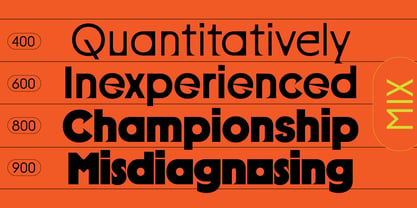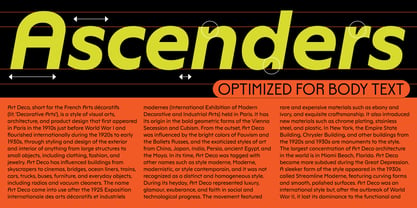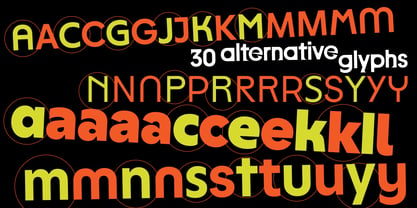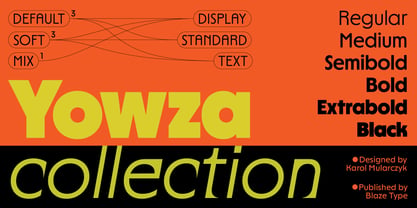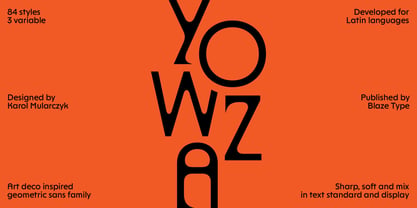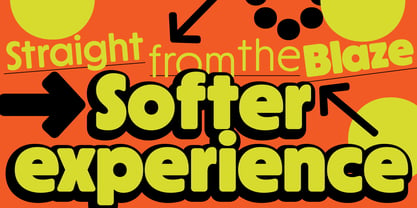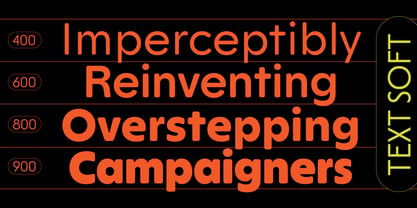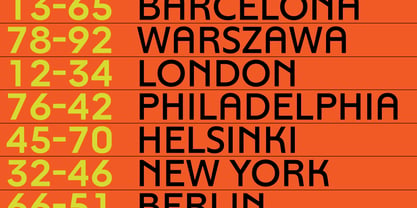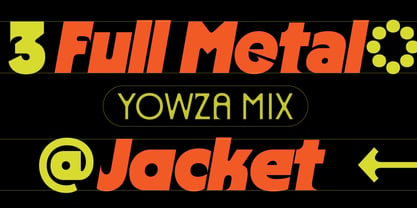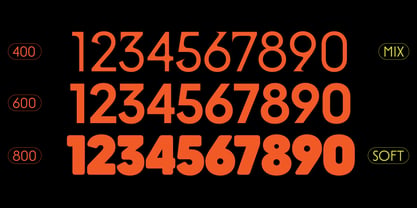
Yowza
The Yowza Font Family was designed by Karol Mularczyk and published by Blaze Type. Yowza contains 84 styles and family package options. More about this family
Yowza was developed as a collection of geometric, sans-serif typefaces that served as a personal interpretation of Art Deco elegance. The project originated from a specific design need: I was searching for a display font that could bridge the gap between rigid, architectural construction and soft, organic detailing. What began as a single prototype eventually matured into a comprehensive typographic system. While Yowza sprouted from a fascination with display typography, its expansion into text-focused versions became the project's most rewarding challenge. The final system resulted in three distinct families: Display, Standard, and Text. The character set was meticulously packed with numerous stylistic alternates, allowing for a dramatic shift in the font’s personality. The depth of these combinations became so vast that the system began to take on a life of its own, offering a level of customization that exceeded my initial vision.